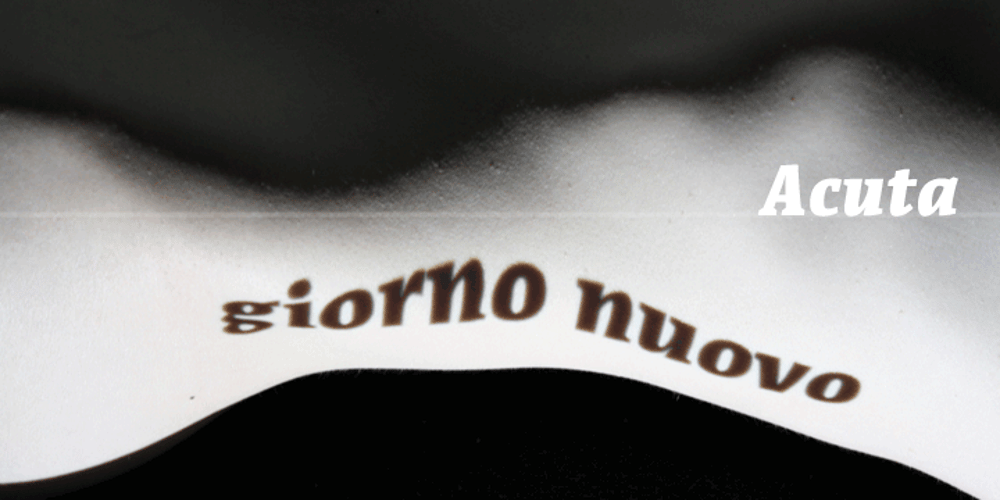
Acuta Font Family was designed by Elena Albertoni and published by Anatoletype. Acuta contains 14 styles and family package options. Acuta is a new all-purpose text serif with a good readability and a contemporary, robust look thanks to its low-medium contrast. The differences between thicks and thins are less strongly marked than in oldstyle text faces; yet the diagonal stress needed to facilitate reading is partly provided by the letter shape itself: sharp angles and italic construction give the right dynamism to the text. Acuta becomes very distinctive as a headline, while its big x-height makes it suitable for texts at rather small sizes too. The family consists of seven weights & correspondent italics, with a large character set. The Book and Medium weights, relatively close to each other, can both be used as “plain” weight depending on the size of the text, background color or backlighting. Small caps, oldstyle and tabular figure alternates, superiors and inferiors and ligatures are available in all styles through OpenType features. The real italics include unobtrusive swash alternates to emphasise the written feeling. Please find a specimen of Acuta (PDF) in the Gallery section.